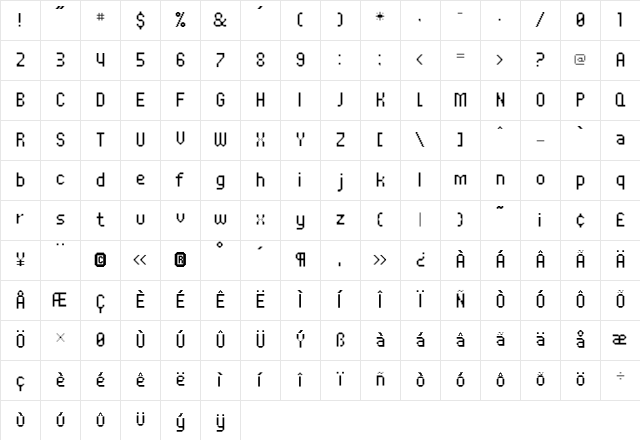
UNDA BitmapFine Free Font
UNDA BitmapFine
Style: BitmapFine
Design Context for UNDA
UNDA is rooted in pixel-grid construction, making it a natural fit for game UI, retro computing aesthetics, and digital nostalgia projects.
Pro Tip: Use UNDA at sizes that align with its pixel grid for the sharpest rendering - scaling to non-integer multiples can introduce unwanted blur.